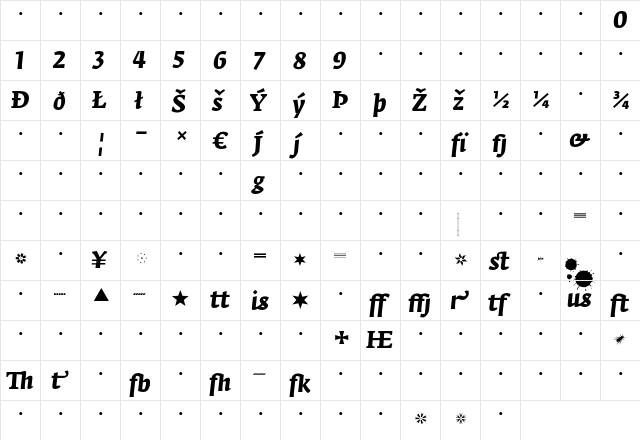
FedraSerifA BoldItalicExpert
Design Context for FedraSerifA Typeface
FedraSerifA brings classic typographic sensibility to the table — its serifs and measured letterforms reflect centuries of print heritage. The slanted form adds forward momentum and visual energy. The heavy weight commands attention and anchors typographic hierarchies.
Pro Tip: Set FedraSerifA with slightly loose tracking in headlines to let each letterform's detail read clearly at display sizes.